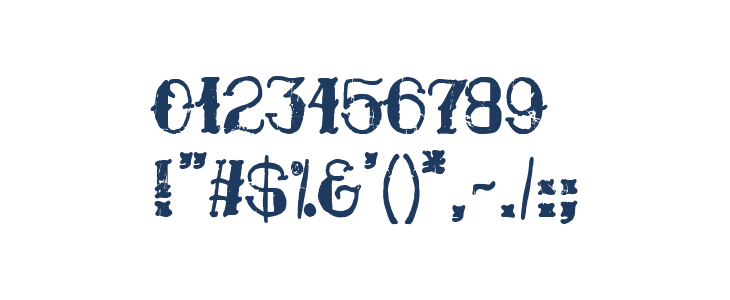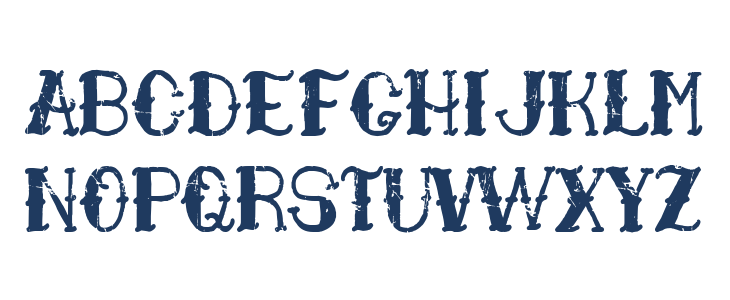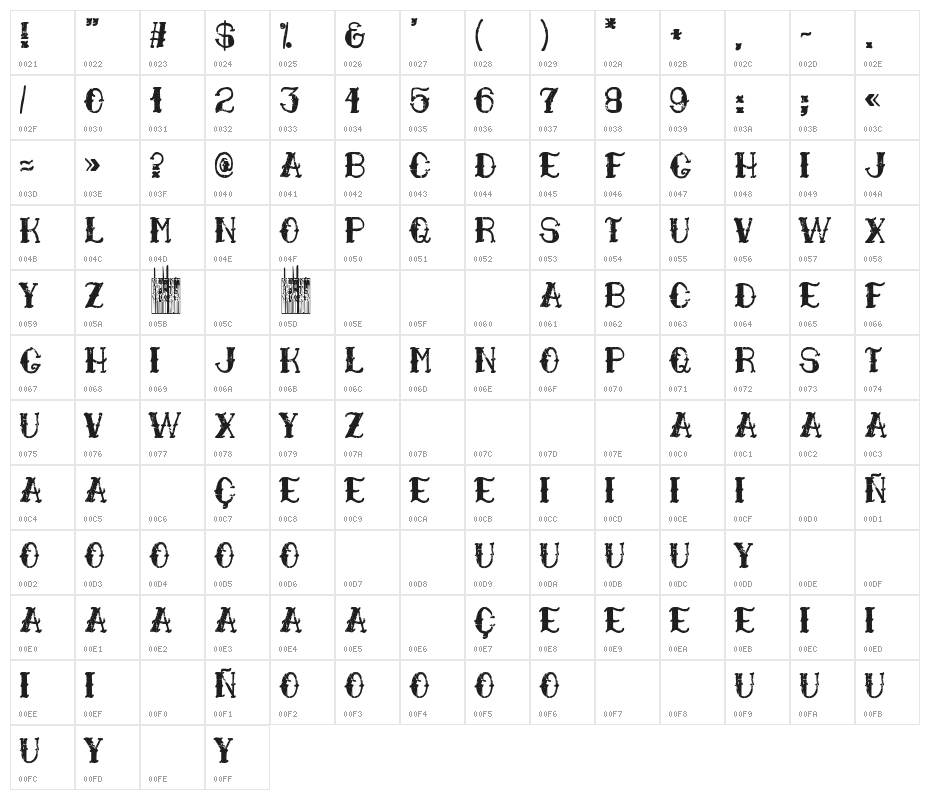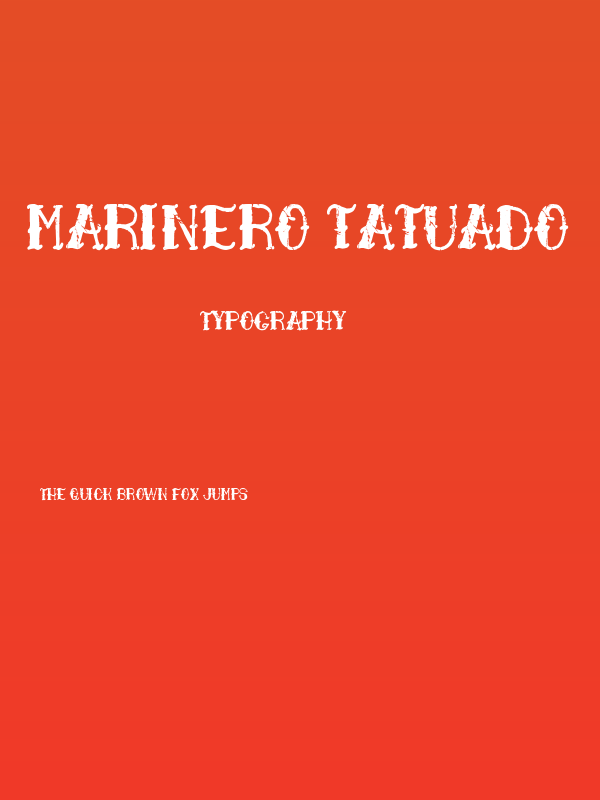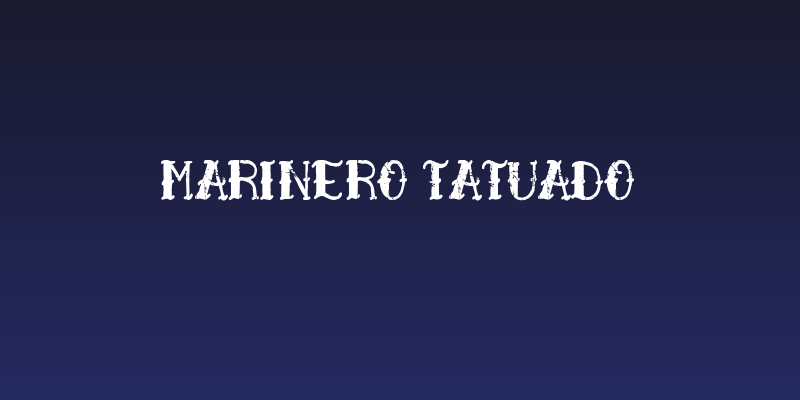
Marinero Tatuado Font
Marinero Tatuado Description
A distressed, textured serif font with bold, rough edges and an uneven, weathered appearance, evoking a vintage or nautical tattoo style. The characters are uppercase with strong vertical stress and decorative serifs, and the numerals and symbols share the same distressed effect.
| Overall Style | Decorative, Vintage, Nautical |
| Use Case | Headlines, Logos, Posters, Decorative text |
| Proposed Projects | Posters, tattoo designs, branding for bars or nautical-themed businesses, album covers, vintage event flyers. |